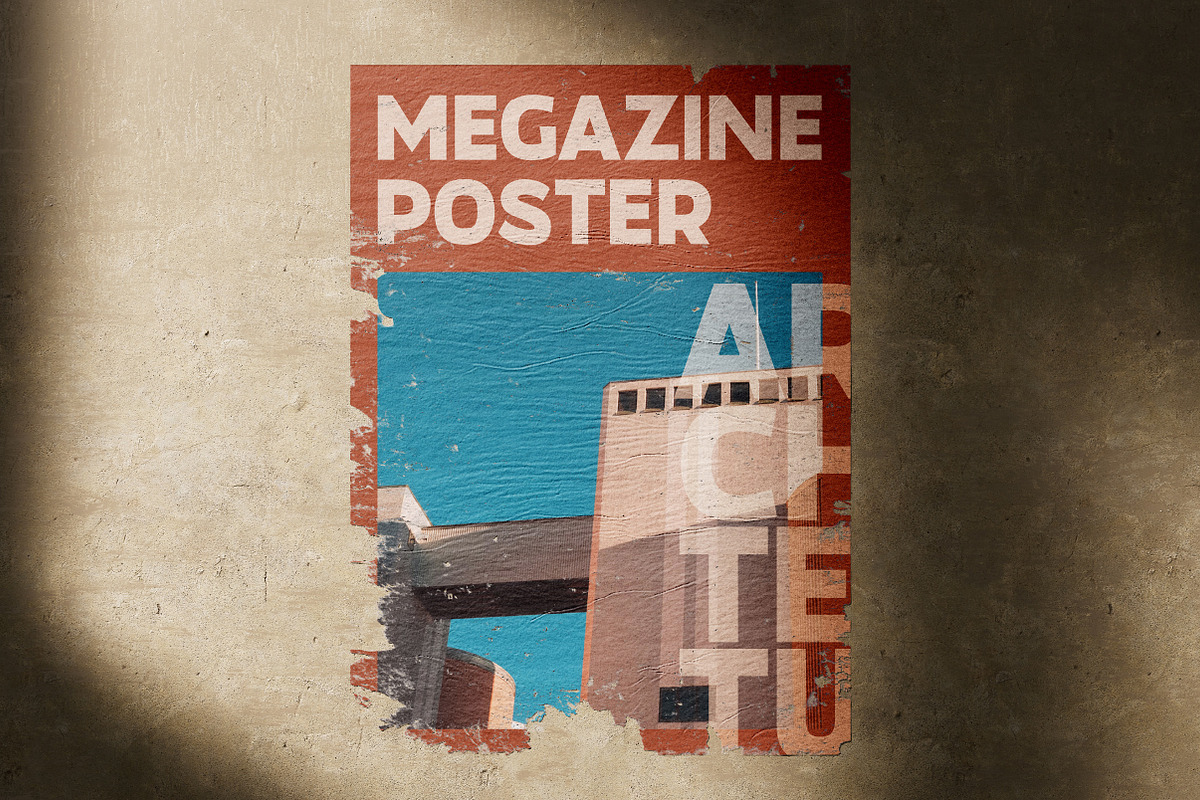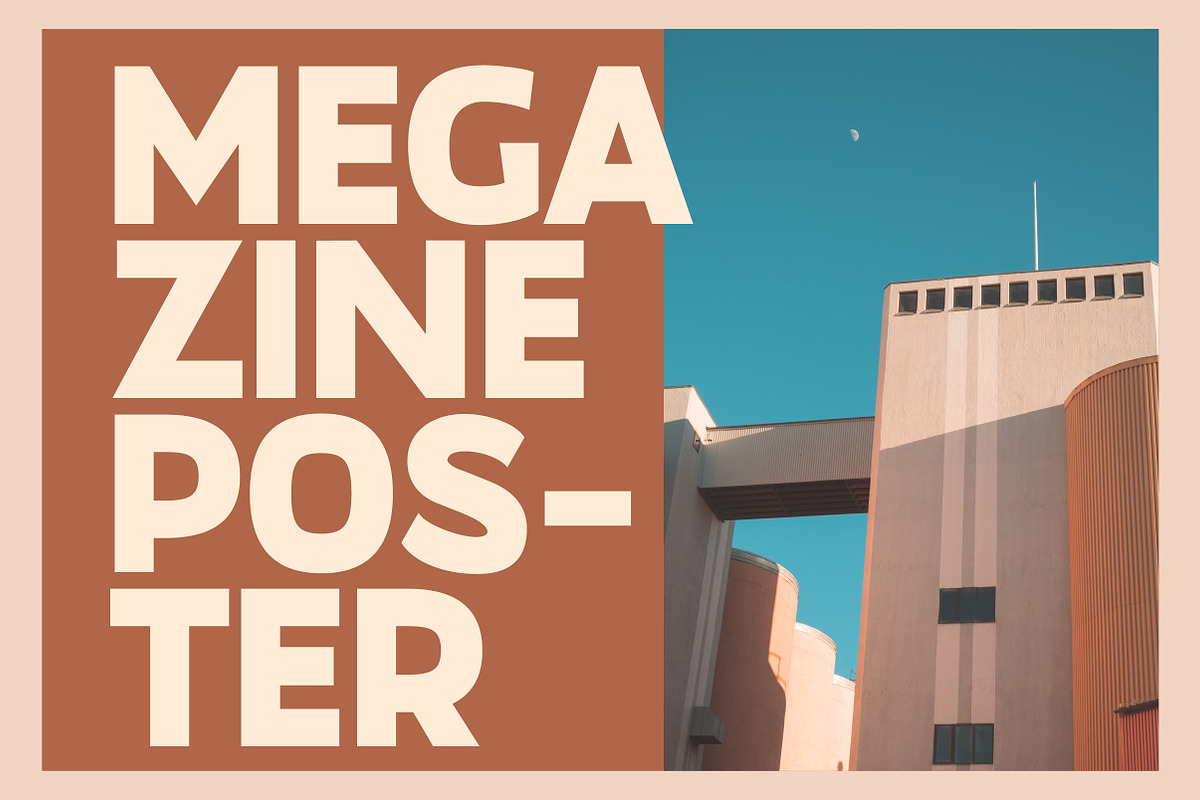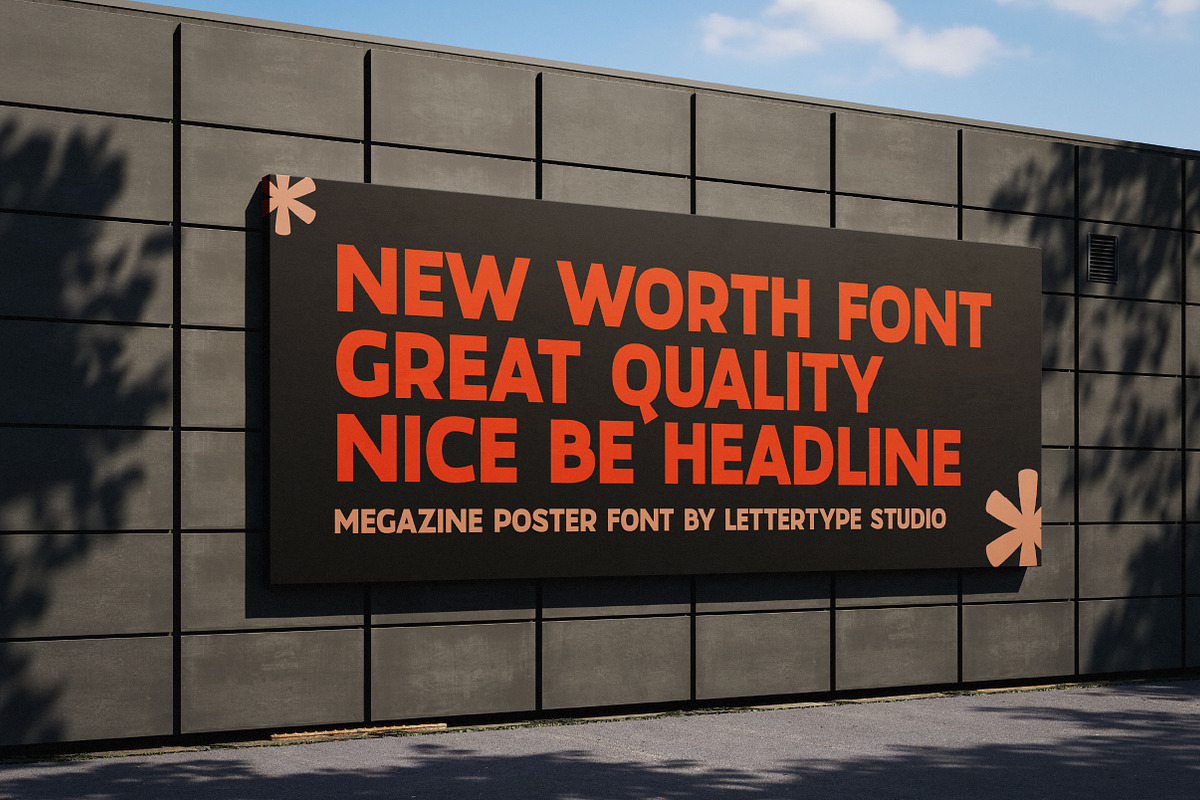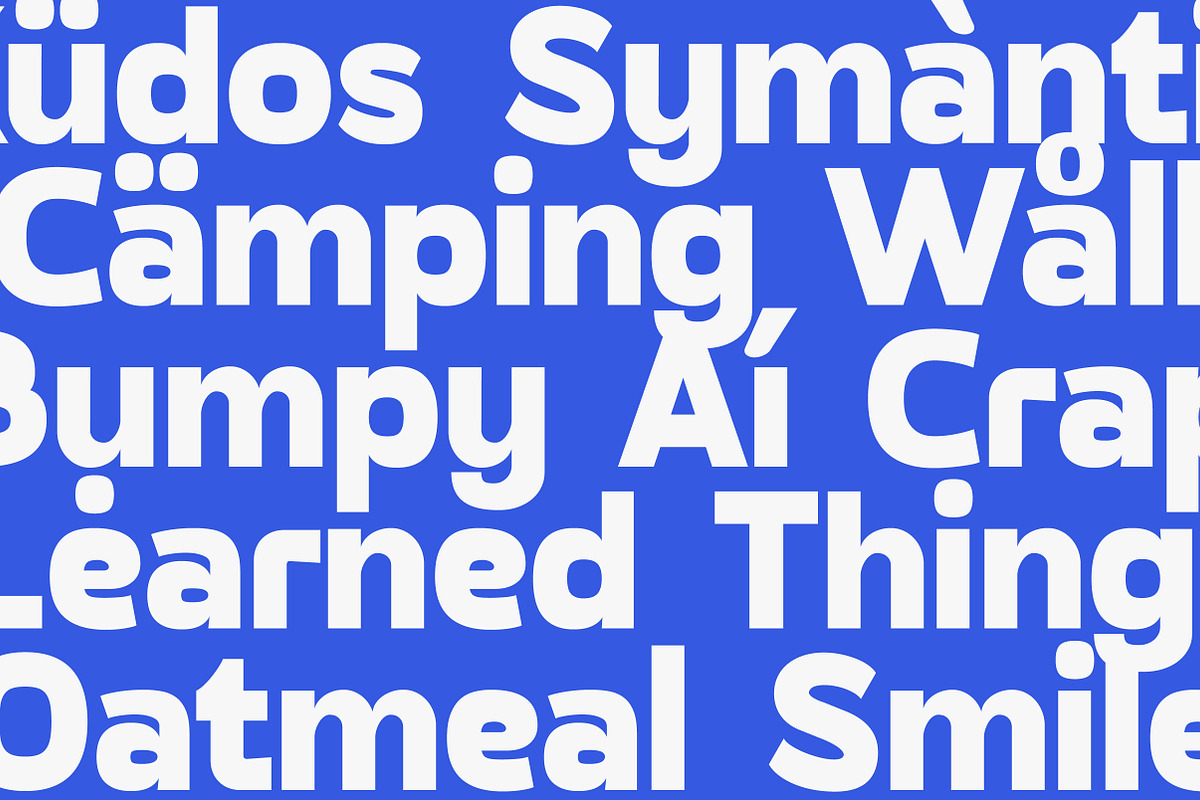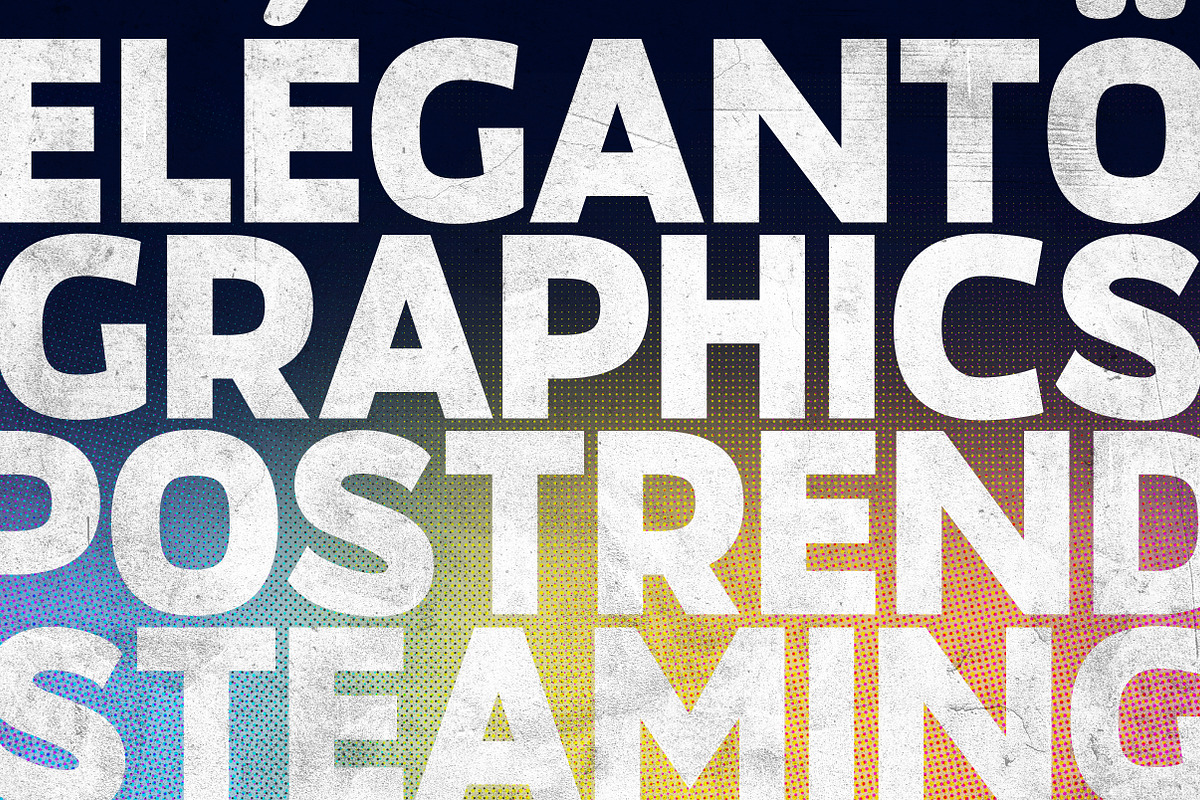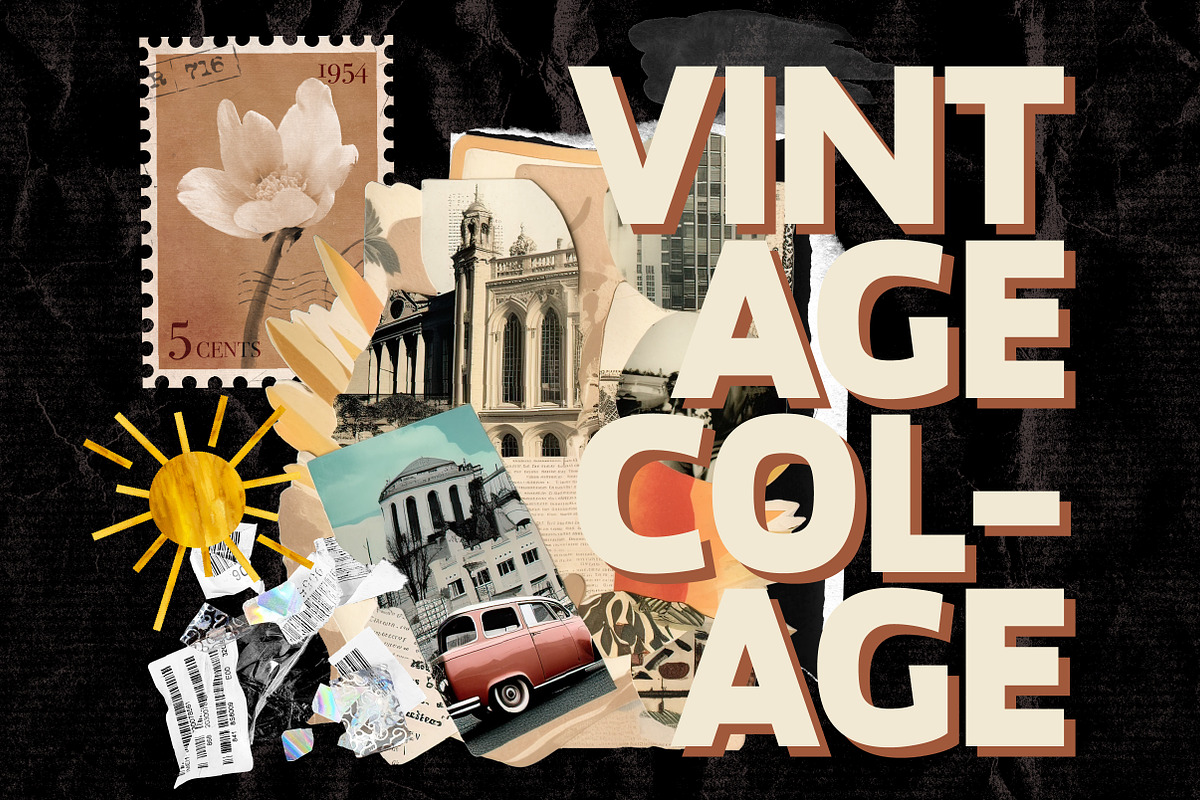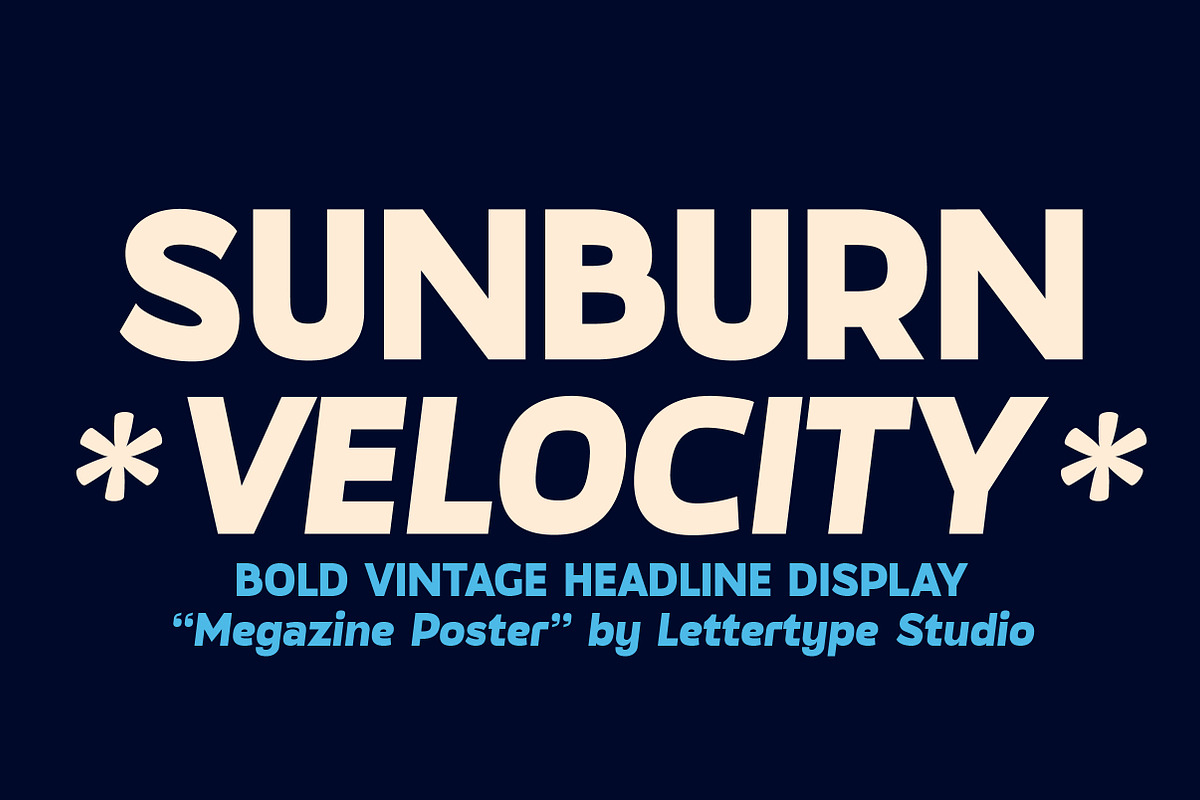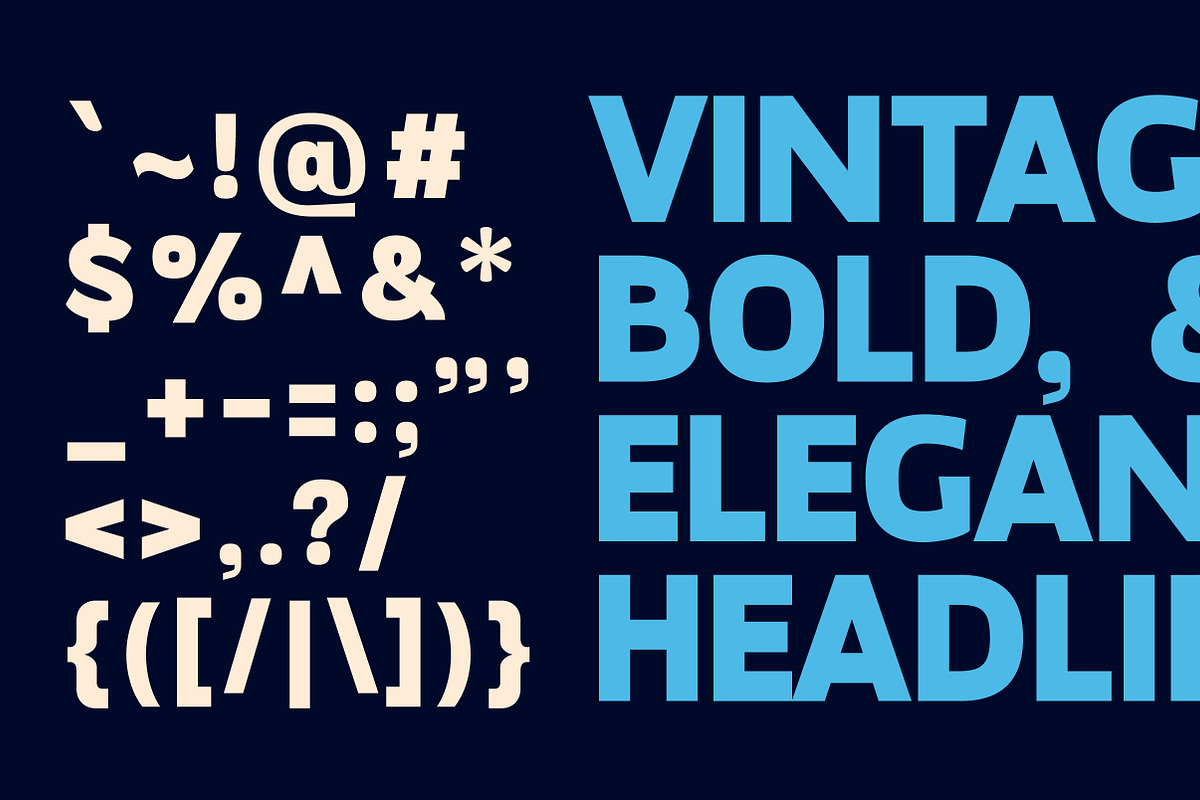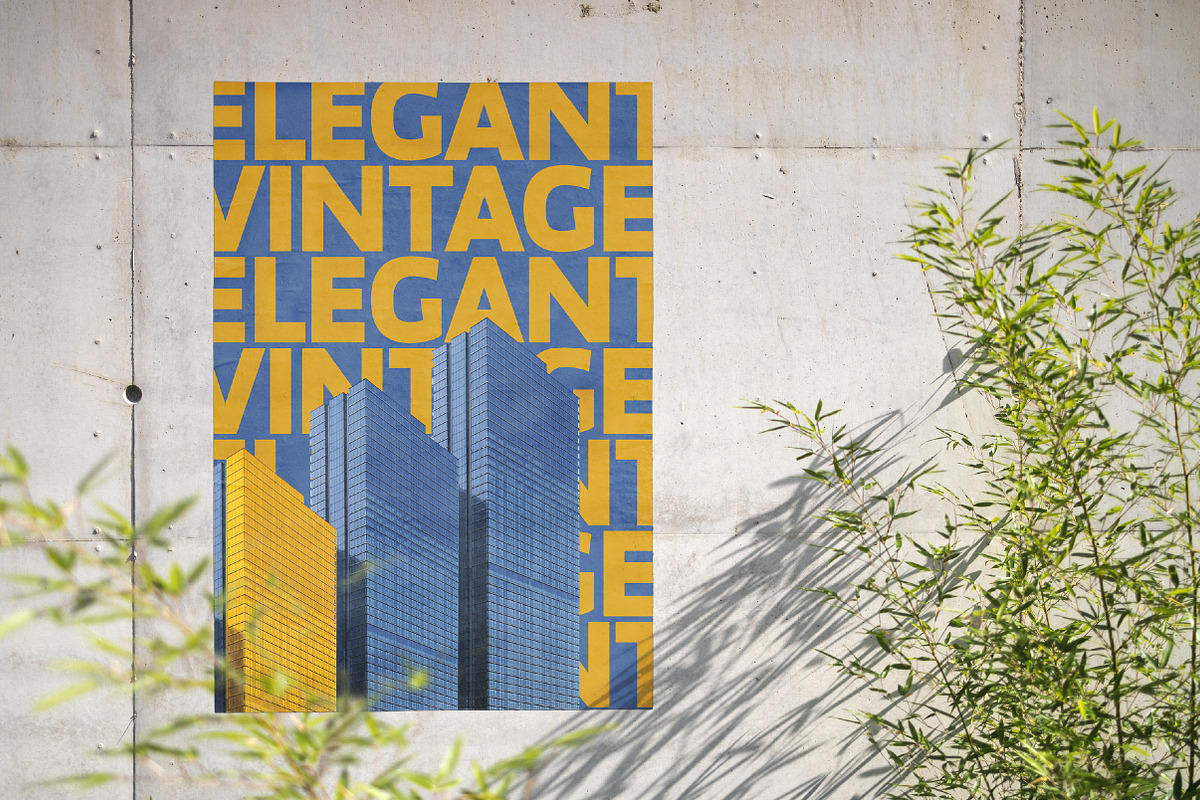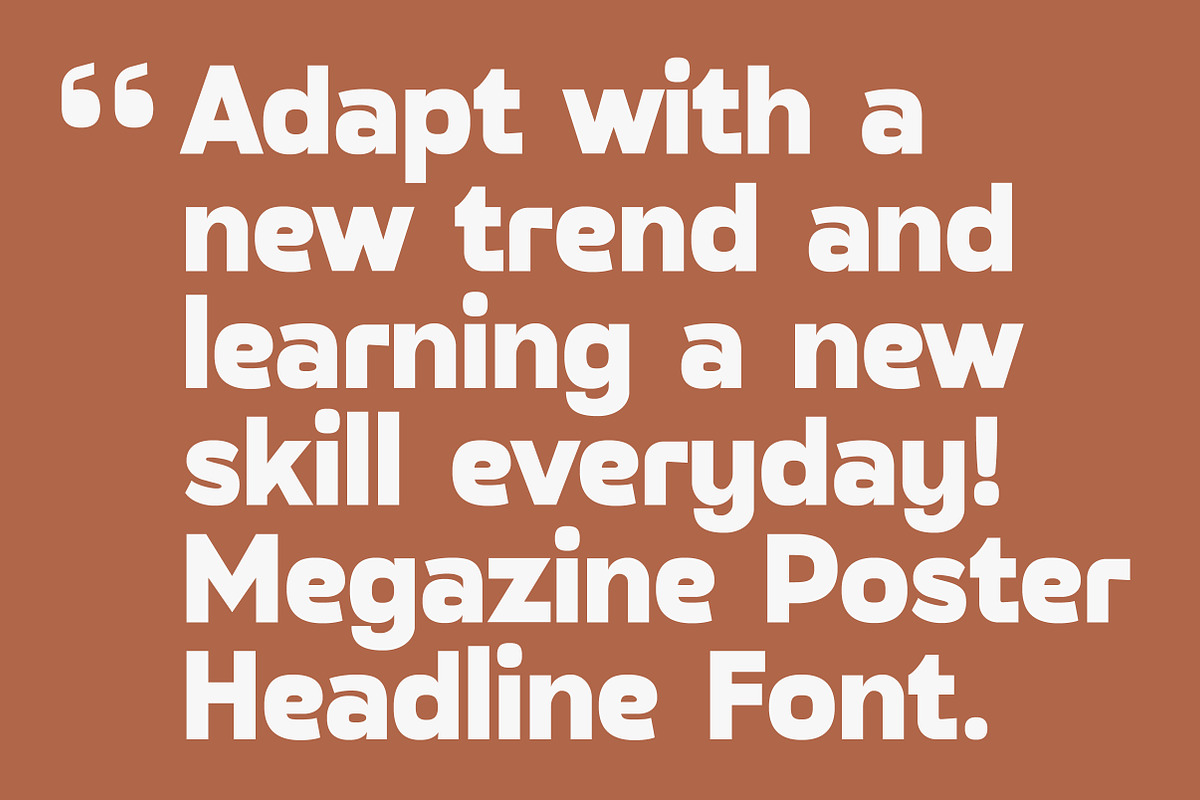
Megazine Poster Bold Vintage Display
Megazine Poster is a bold vintage sans serif font inspired by the 60s and 70s graphic design. Designed for readability and versatility, enhances its contemporary appeal with a bold and strong personality and very good fit in headline design.
Megazine Poster includes 2 weights in regular and italic, as well as broad Latin language support.
Megazine Poster Features:
- Upright & Italic styles
- Vintage branding, packaging & logo design
- Editorial headlines, posters & magazine covers
- Retro advertising, signage & event promotions
- Web typography, creative layouts & display text
- Fashion campaigns & nostalgic visual design